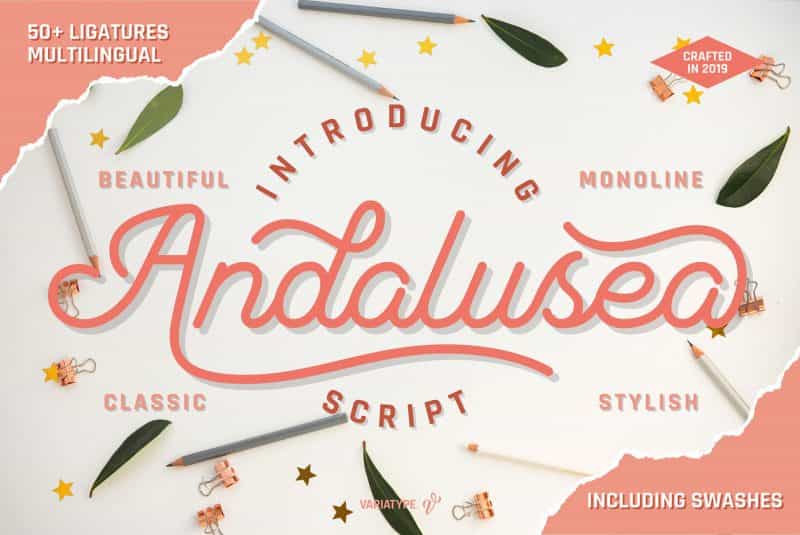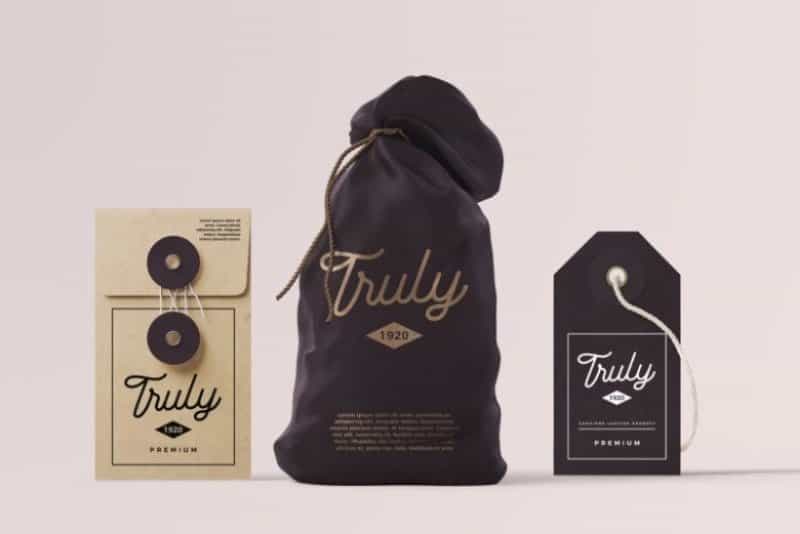
Andalusea Script Font, an elegant monoline font designed by Variatype. This font is an ageless, straightforward script-style that is perfectly suited for your business logo, personal branding items and even t-shirts.